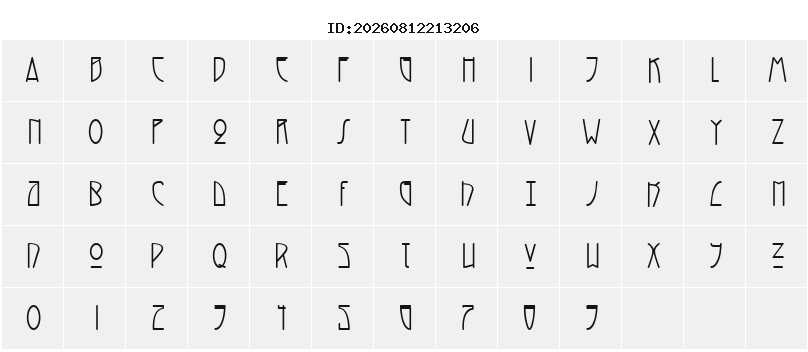
Reverberate Preview
• Font Name: Reverberate
• Full Font Name: Reverberate Bold
About Reverberate.ttf
Reverberate.ttf is a modern, elegant sans-serif font designed for ultimate readability and visual harmony. Perfect for branding, headlines, web design, and print materials.